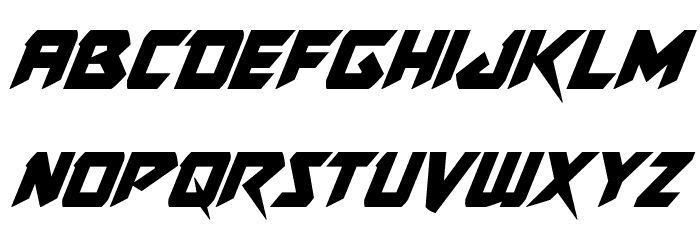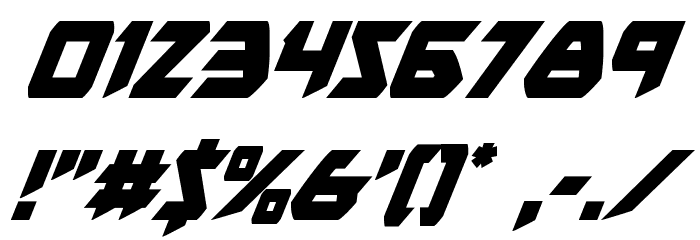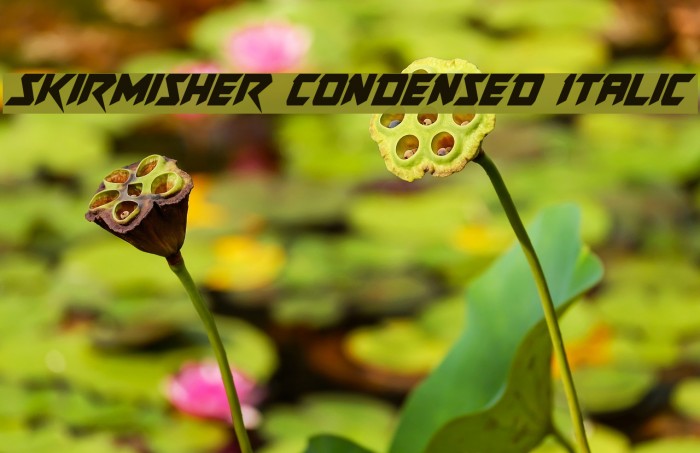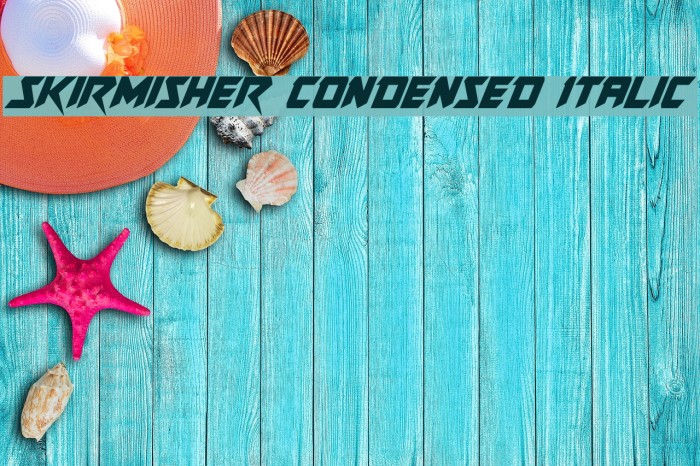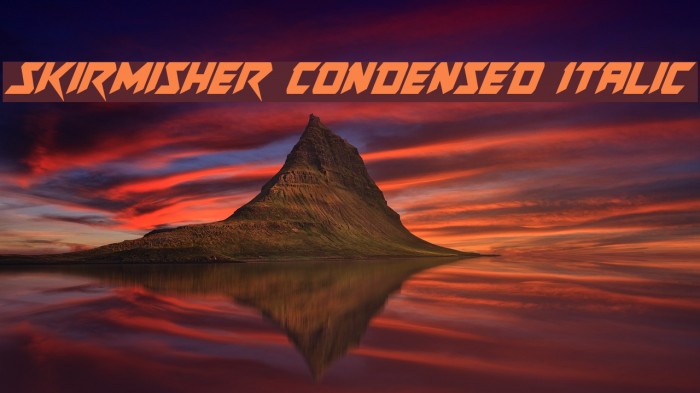
Skirmisher Condensed Italic Font
This font features a bold and dynamic design with sharp, angular edges and a condensed form. The italic slant adds a sense of motion and urgency, making it ideal for attention-grabbing headlines. The characters are tightly spaced, enhancing the compact appearance. The high contrast between thick and thin strokes gives it a striking and aggressive look, suitable for modern and edgy designs. Its unique style makes it stand out, perfect for projects that require a bold statement.
Bold, angular, and italic with a condensed form and high contrast.
- Proposed Projects: Ideal for sports branding, action movie posters, video game titles, and edgy advertisements.
- Character Spacing: Tight